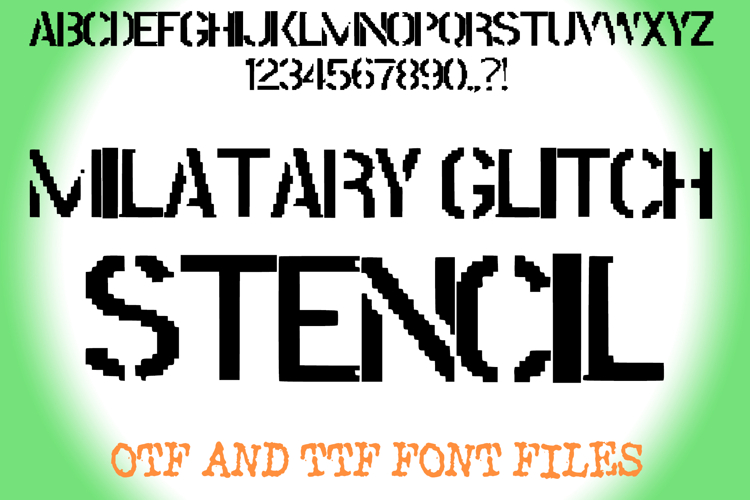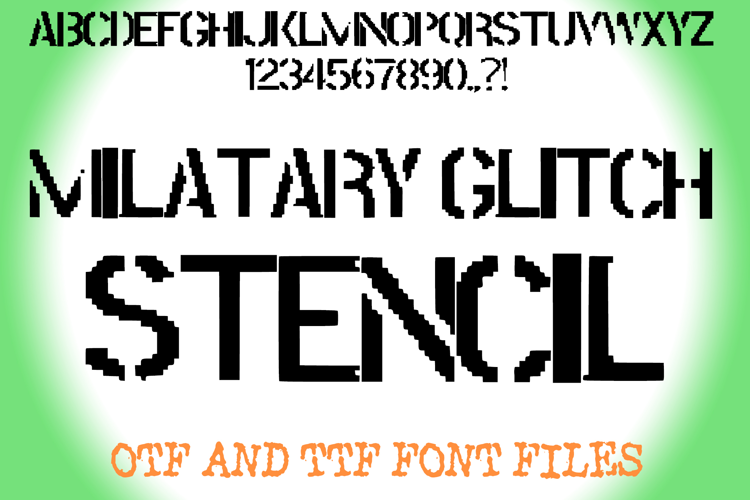
Military Glitch Stencil Lettering ABC Font Typography Text
Unleash the raw, tactical power of a digital battlefield with "Military Glitch Stencil," a cutting-edge font that fuses the disciplined precision of a military stencil with the chaotic, fractured lines of a computer glitch. This isn't just a typeface; it's a powerful statement of technology gone awry, perfect for designs that need a gritty, high-tech, and commanding presence.
Each character in "Military Glitch Stencil" is meticulously crafted to mimic the broken, segmented feel of a corrupted data stream. The classic stencil aesthetic is disrupted by abrupt digital distortions, giving the font a unique, distressed, and futuristic vibe. It’s an ideal choice for headlines, logos, posters, gaming art, and anything that needs to convey an industrial, dystopian, or cyberpunk feel.
Why "Military Glitch Stencil" Is Your Ultimate Tactical Advantage:
Unique & Bold: Stand out with a distinctive style that combines a classic stencil look with a modern digital twist.
High-Impact Display: Ideal for creating powerful, attention-grabbing titles for games, movie posters, apparel, and tech-related branding.
Versatile for Edgy Themes: Perfect for military, gaming, sci-fi, horror, hacking, and surveillance aesthetics.
Strong & Gritty: The distressed look adds a layer of authentic, rebellious character.
If you're looking to add a sense of controlled chaos, digital decay, or tactical precision to your work, "Military Glitch Stencil" is your go-to font. Command attention and leave a lasting impression!